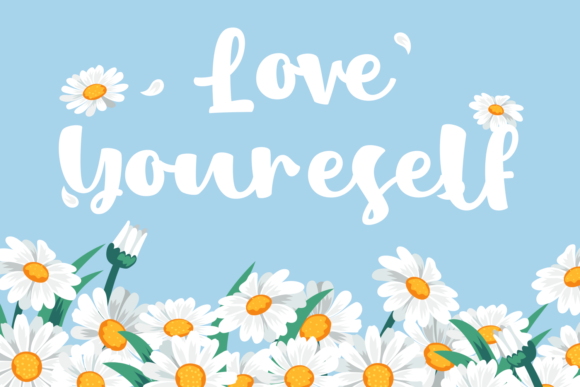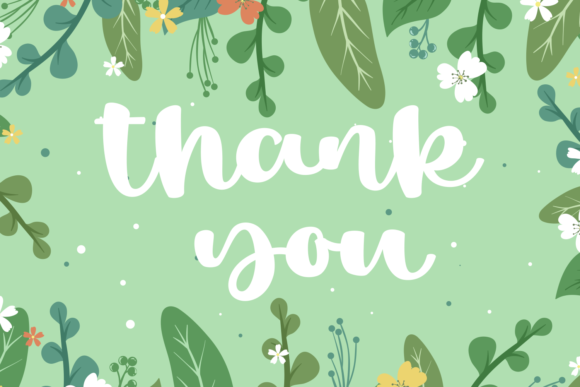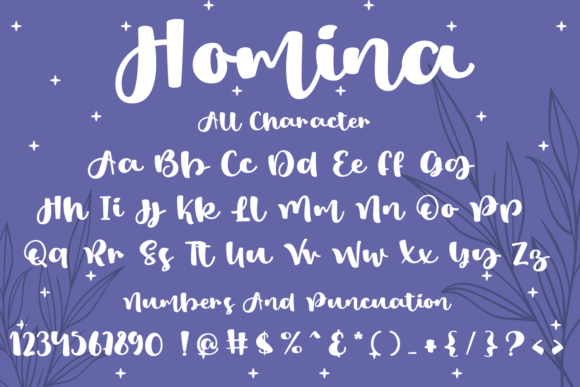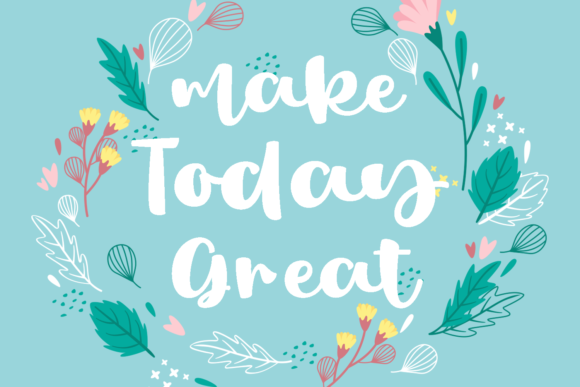
Homina Font
About Homina Font
Homina is a trendy, chic and round lettered handwritten font. No matter the topic, this font will be an incredible asset to your fonts’ library, as it has the potential to elevate any creation.